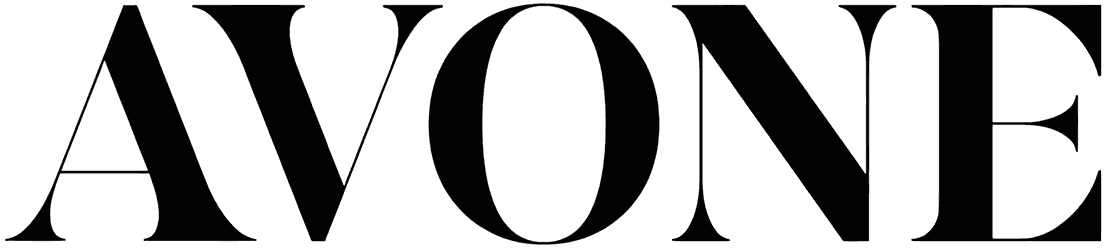
Avone Font
Whether you want to establish a formal or professional look, the Avone font is ideal. This one stands out among luxury serif font families because of its elegant design. This modern font can be used for various creative print and digital designs, from logos to elegant business cards, with its narrow spacing.
An industrially designed serif font will set you apart and establish you as a professional designer among your clients and colleagues, even though it does not support numbers 2 to 9.